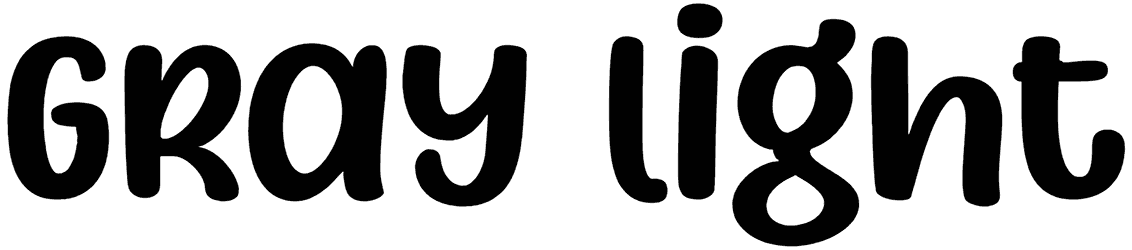
Gray Light Font
Gray Light is a cute font that you can use in your content to give it a childish sense. This font creates a desirable effect with round edges and abnormal letter size, which you can use in many projects like children’s storybooks, cartoons, comic books, and birthday cards.
Unfortunately, you may not get numbers from this collection, but Gray Light doesn’t leave you empty-handed, and you’ll find a whole lot of other characters.